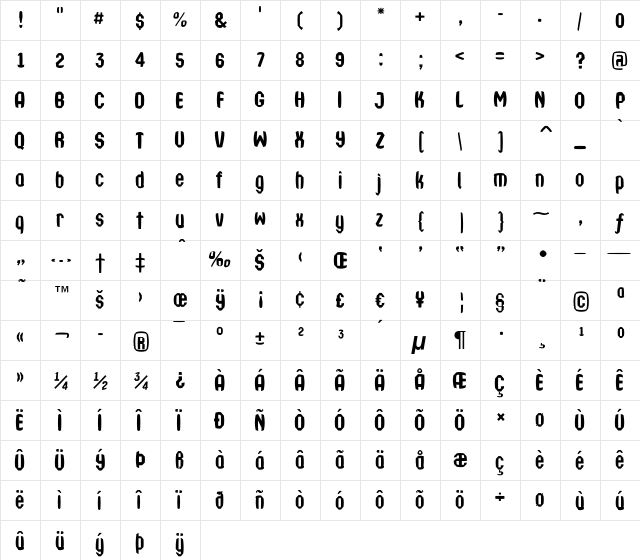
a_TechnicsBrl DemiBold
| Designer | W.Chufarofsky & M.Slutsker |
Design Context for a_TechnicsBrl Typeface
a_TechnicsBrl channels digital-age aesthetics through its sharp, structured letterforms — ideal for brands that want to signal innovation. Its bold stroke weight gives it real presence on the page.